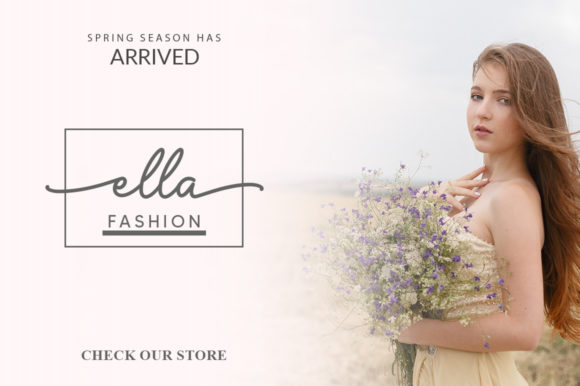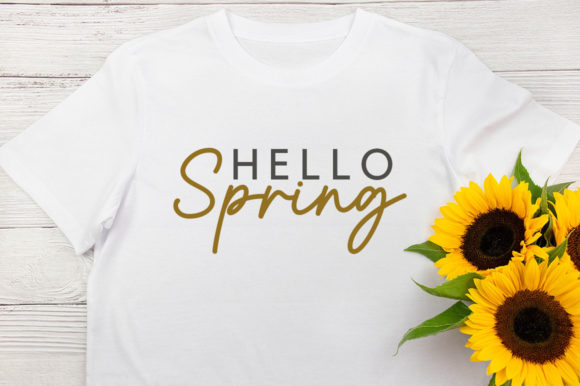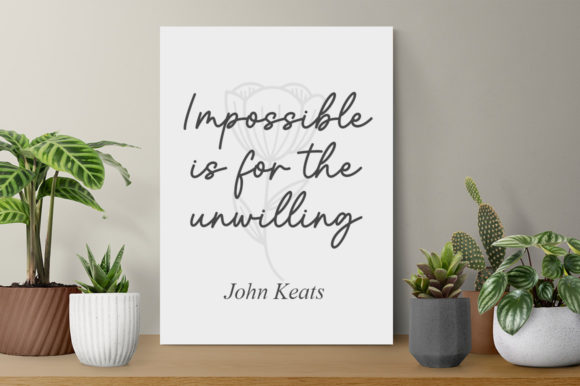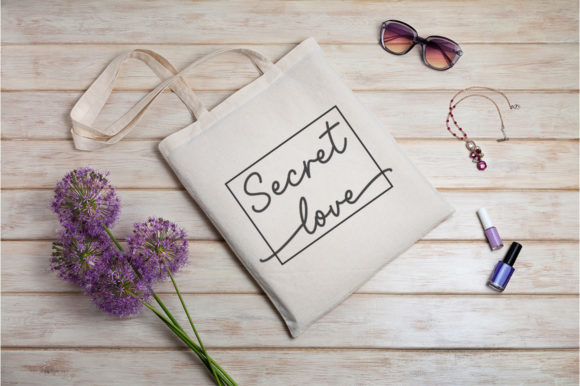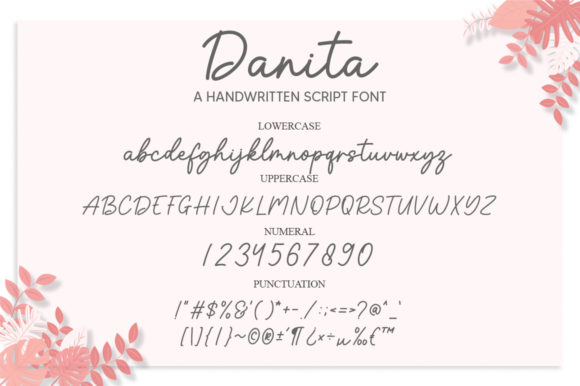
About Danita Font
“Danita” is a font that captures a sense of daintiness and flow with its graceful handwritten style. This font exudes a sweetness and joy that make it an ideal choice for a variety of design projects, particularly those that require a romantic and personalized touch. With its delicate strokes and charming letterforms, “Danita” adds a touch of elegance and sentimentality to your creations.
The name “Danita” perfectly encapsulates the font’s delicate and gentle nature. Its flowing lines and soft curves create an inviting and approachable feel that resonates well with a romantic aesthetic. The font’s handwritten appearance adds a personal and human touch to your text, making it perfect for writing wedding invitations, love notes, greeting cards, and more.
“Danita” is particularly well-suited for projects that require a personalized and sentimental element. Its dainty and flowing script style evokes a sense of intimacy and care, making it an excellent choice for expressing heartfelt emotions and creating memorable designs.
Incorporating “Danita” into your designs can help evoke emotions and create a genuine connection with your audience. Its romantic and flowing style lends itself to a wide range of projects, from wedding invitations to love-themed artwork. With “Danita,” you have a font that brings an air of elegance and sentiment to your creations, making them all the more special and memorable.